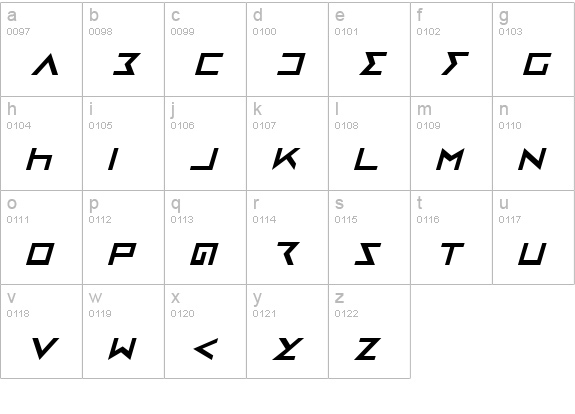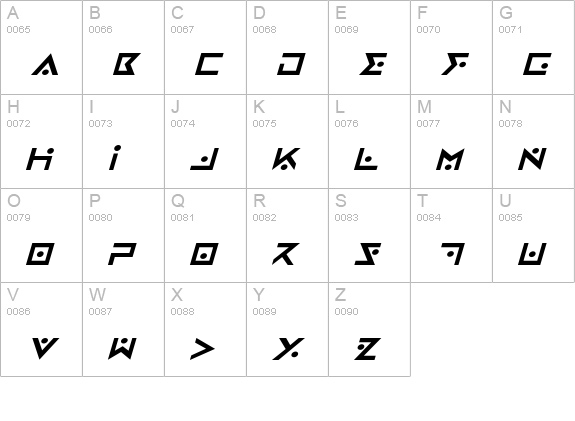
Iron Cobra Italic is a distinctive, italic variant in the Iron typeface family \xE2\x80\x94 well suited to design and typography projects.
Iron Cobra Italic font is a sleek and stylish typeface that exudes a sense of modern sophistication. The italicized design of this font adds a touch of elegance and flair to any design project. Its clean lines and sharp angles make it perfect for conveying a sense of professionalism and refinement. What sets Iron Cobra Italic font apart is that it is not only visually striking but also available for free download at FontsMarket.com. This means that you can easily access this high-quality font without any cost, making it a valuable resource for designers and creatives looking to elevate their work with a touch of sophistication. Whether you're working on a branding project, website design, or any other creative endeavor, Iron Cobra Italic font is sure to make a bold statement and leave a lasting impression. Download it for free today and see how this stunning typeface can take your designs to the next level.